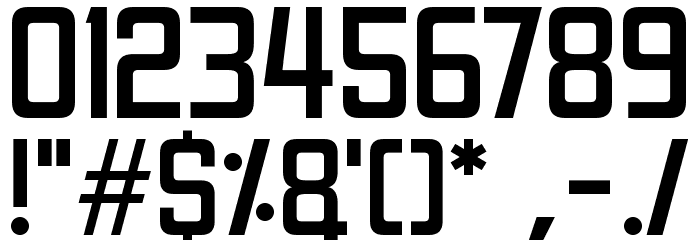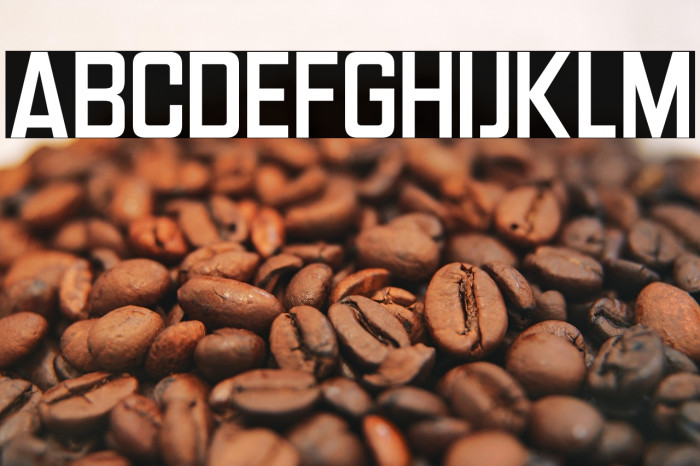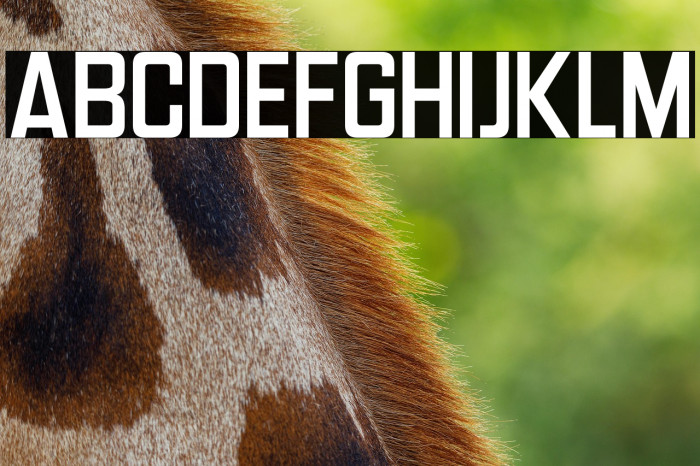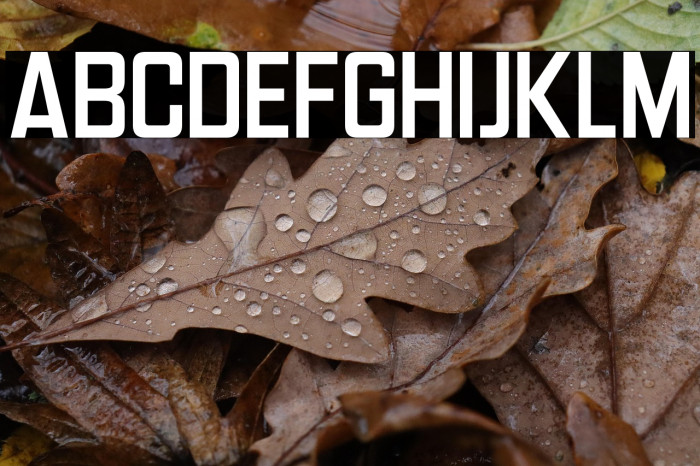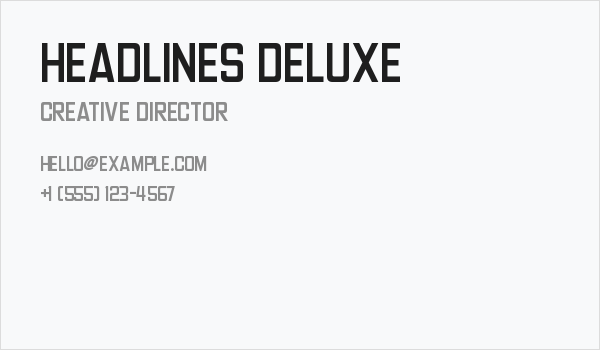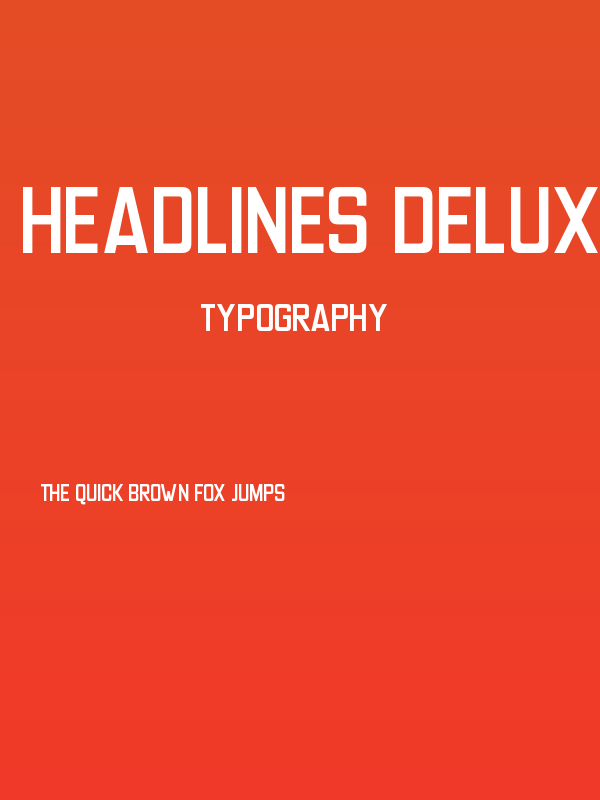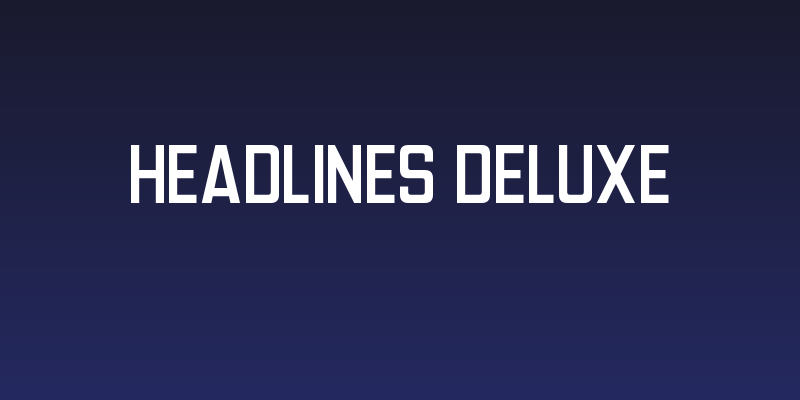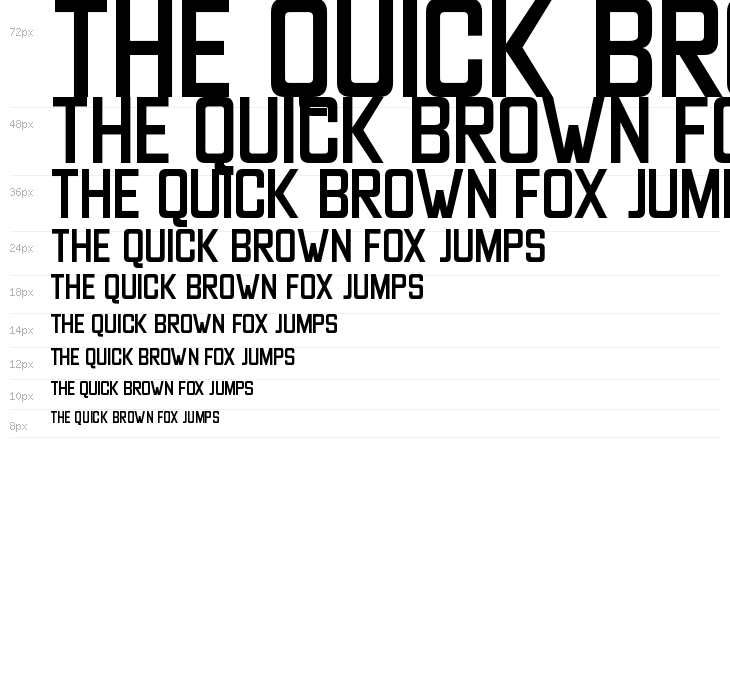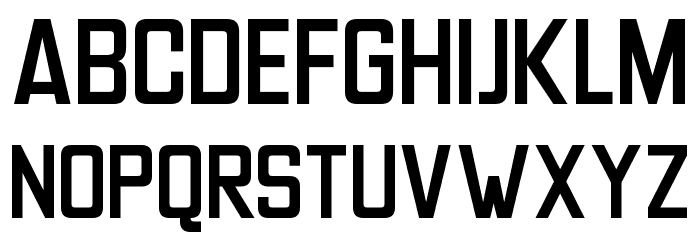
Headlines Deluxe Font
Headlines Deluxe Description
This font features a bold and modern design with a strong geometric structure. The characters are tall and slightly condensed, giving it a sleek and professional appearance. The uppercase letters are uniform in height, while the lowercase letters maintain a consistent style that complements the uppercase. The numerals are clear and easy to read, with a uniform width that matches the overall design. Special characters are distinct and well-integrated into the font's style, making it versatile for various applications. The font's clean lines and sharp angles make it suitable for contemporary design projects.
| Proposed Projects | Ideal for headlines, branding, posters, and digital media where a strong, modern presence is desired. |